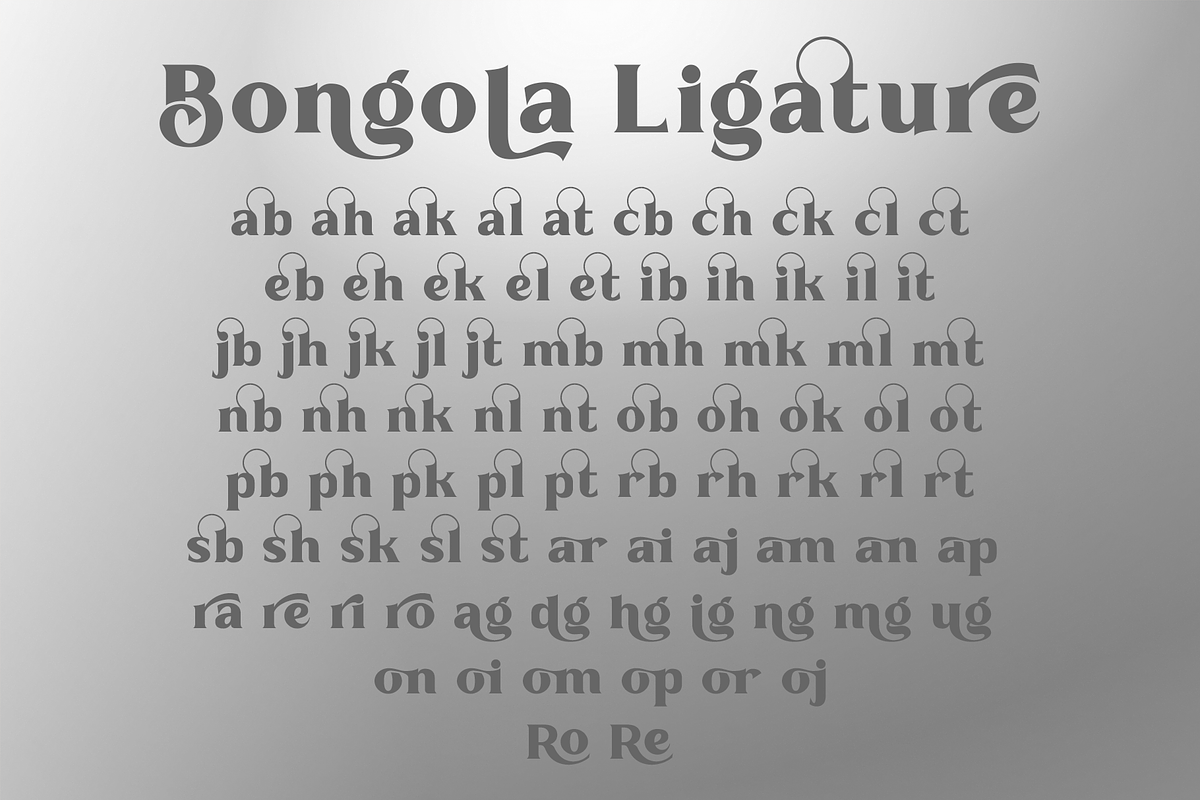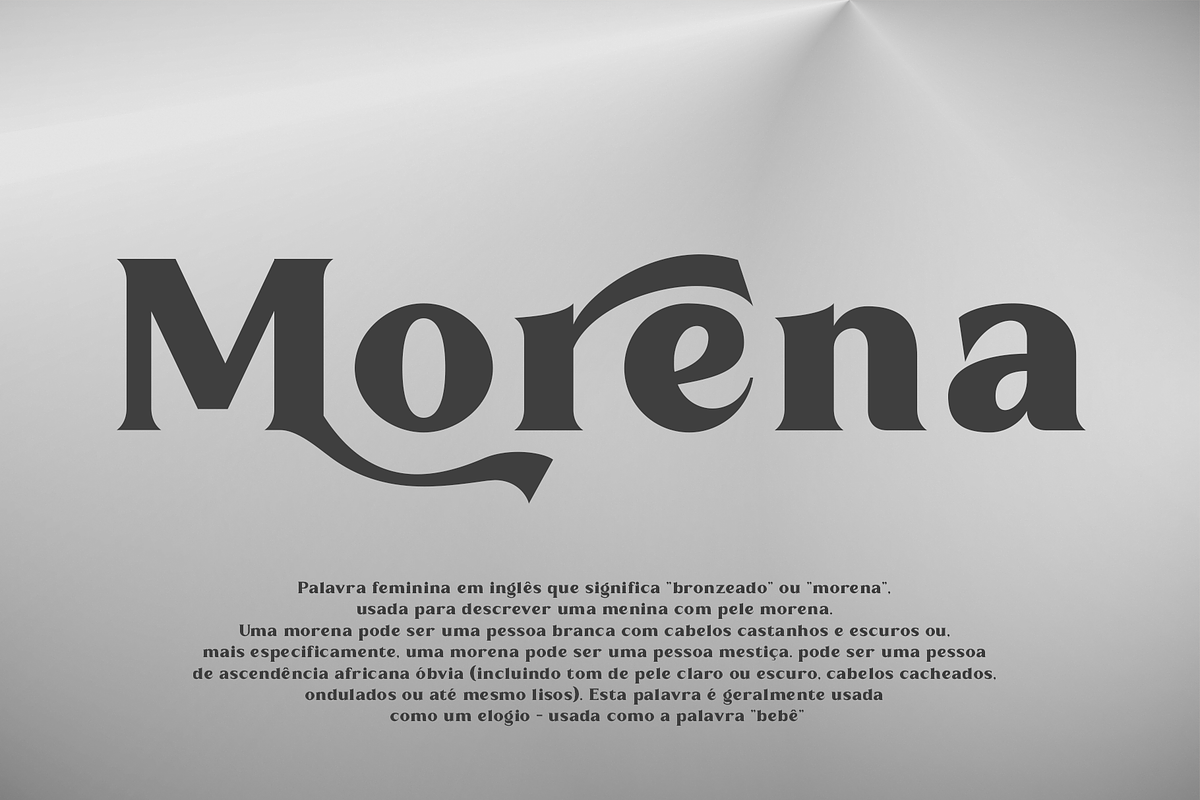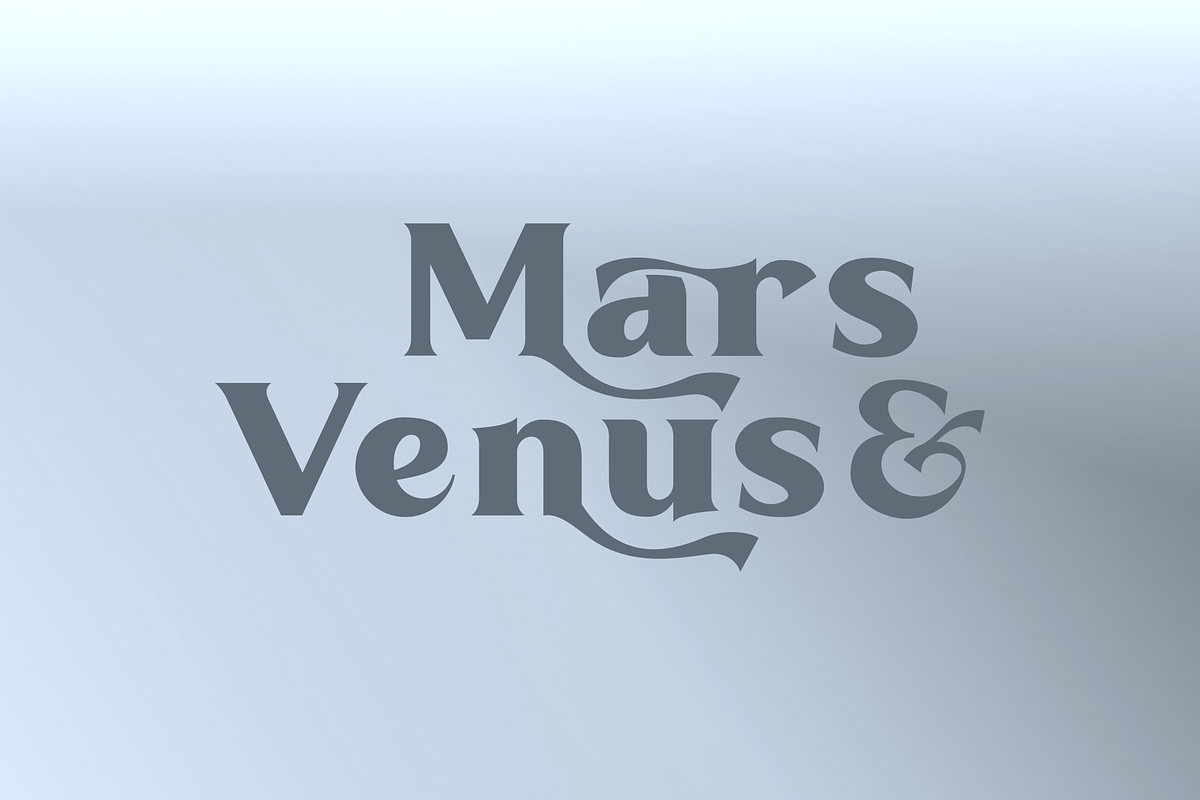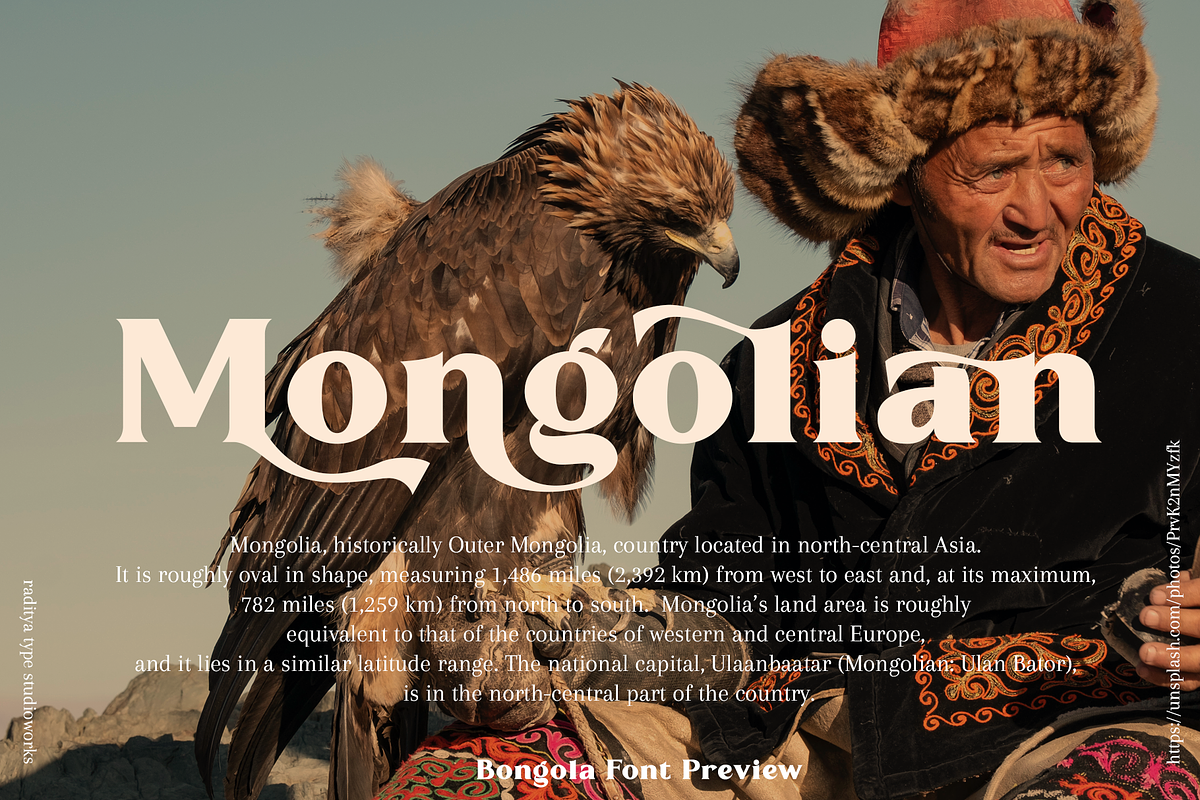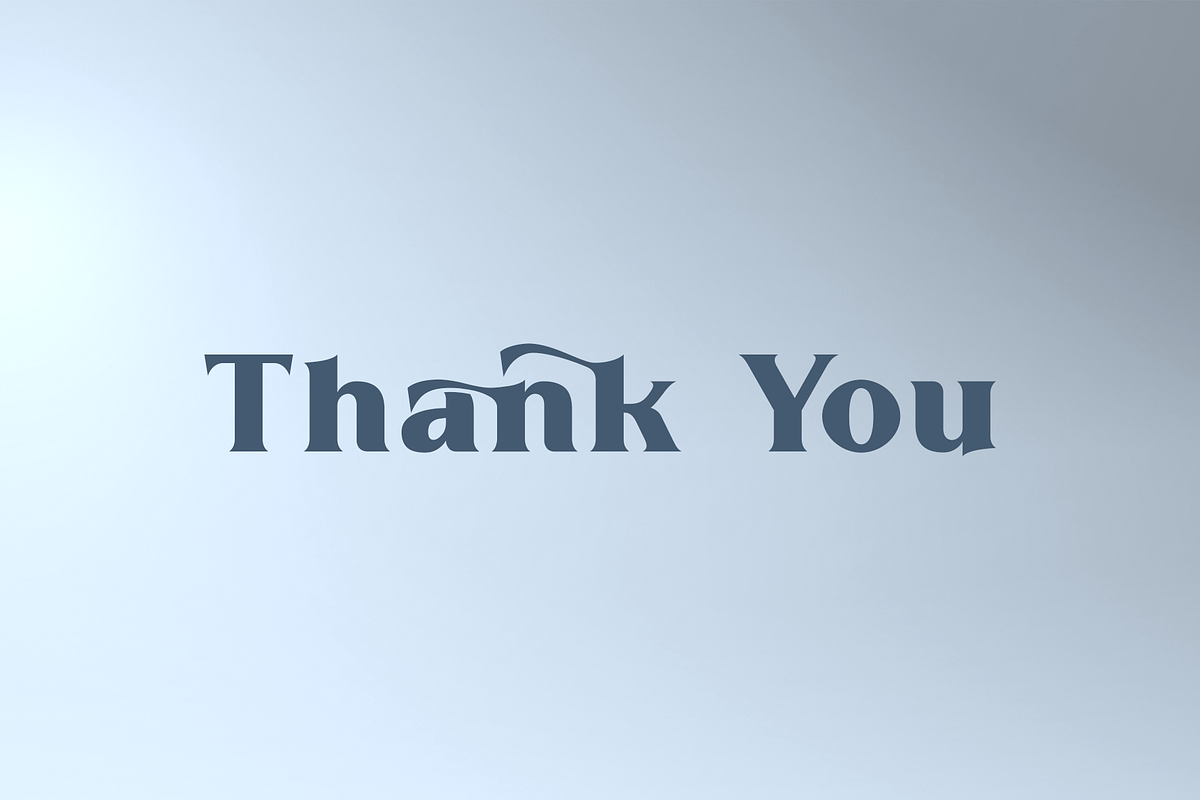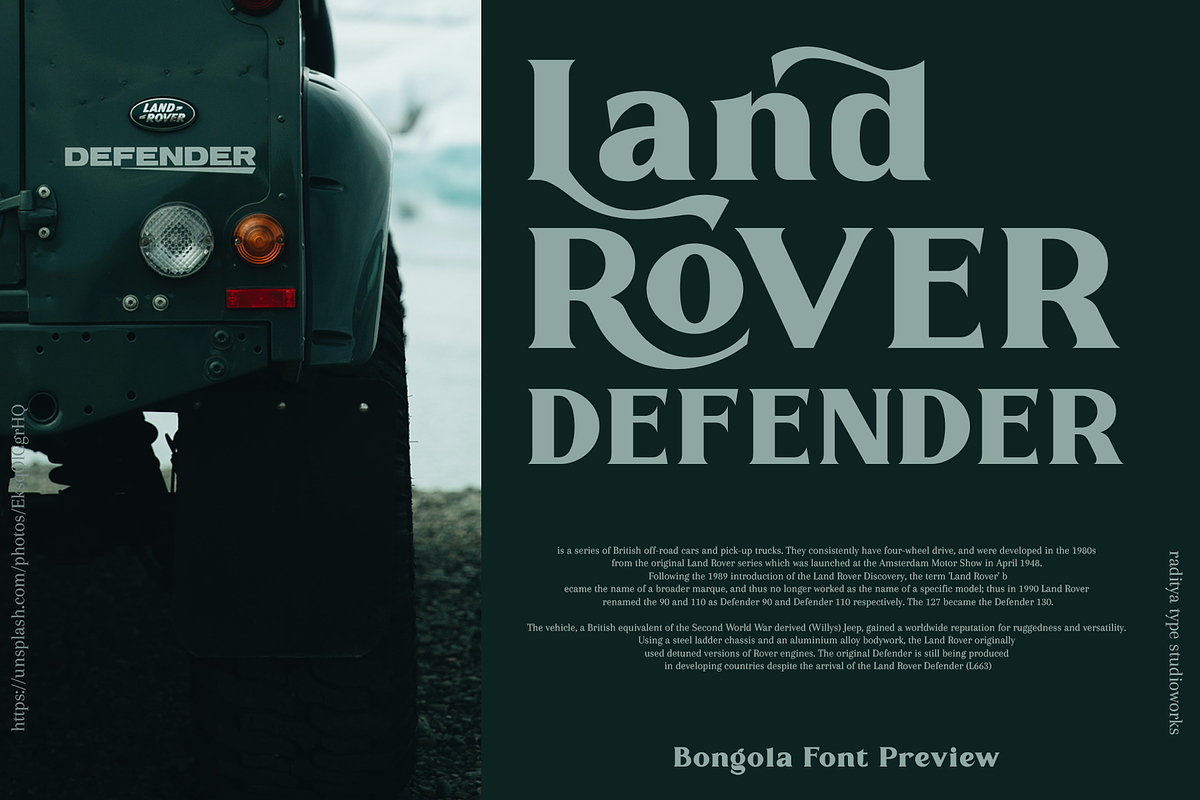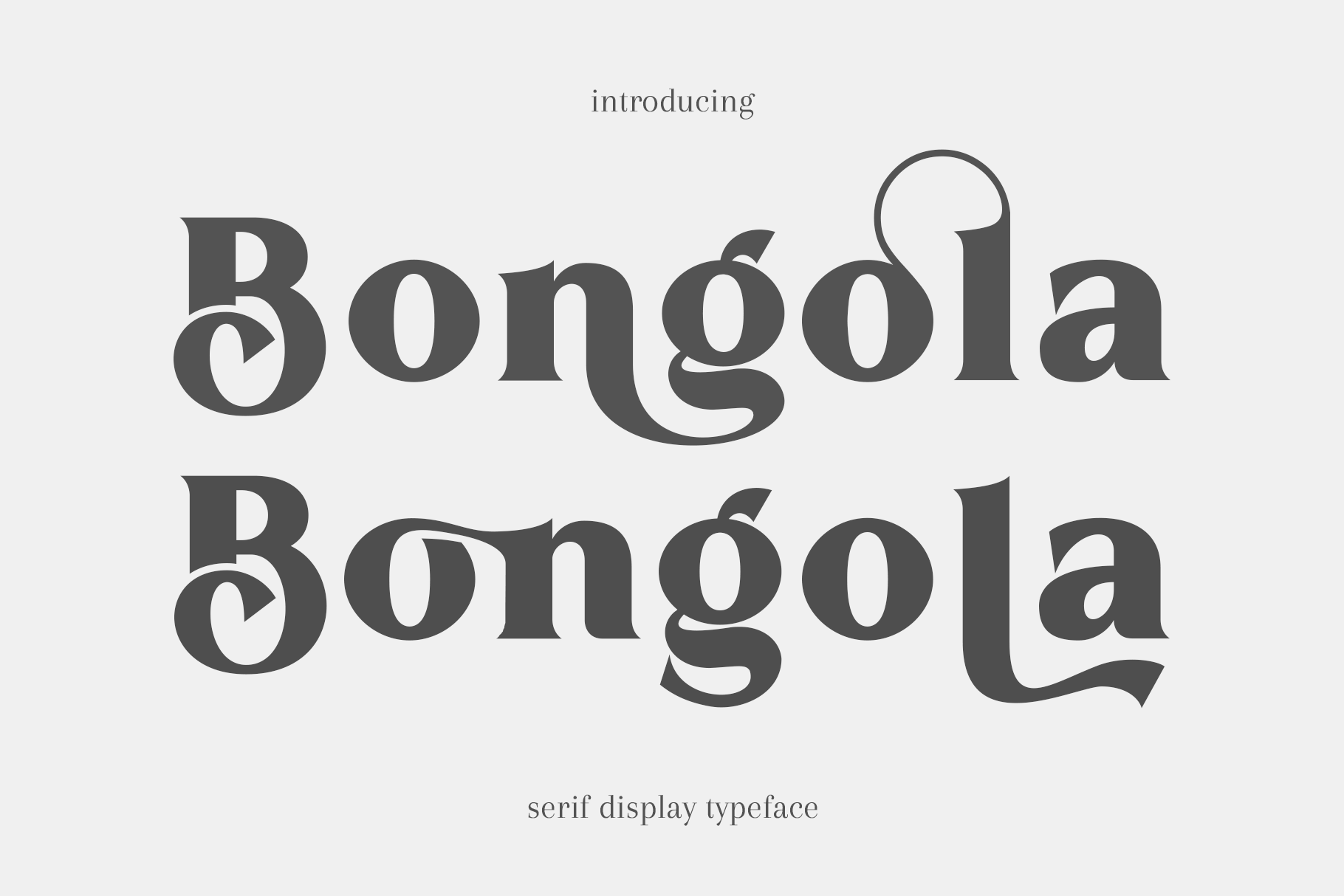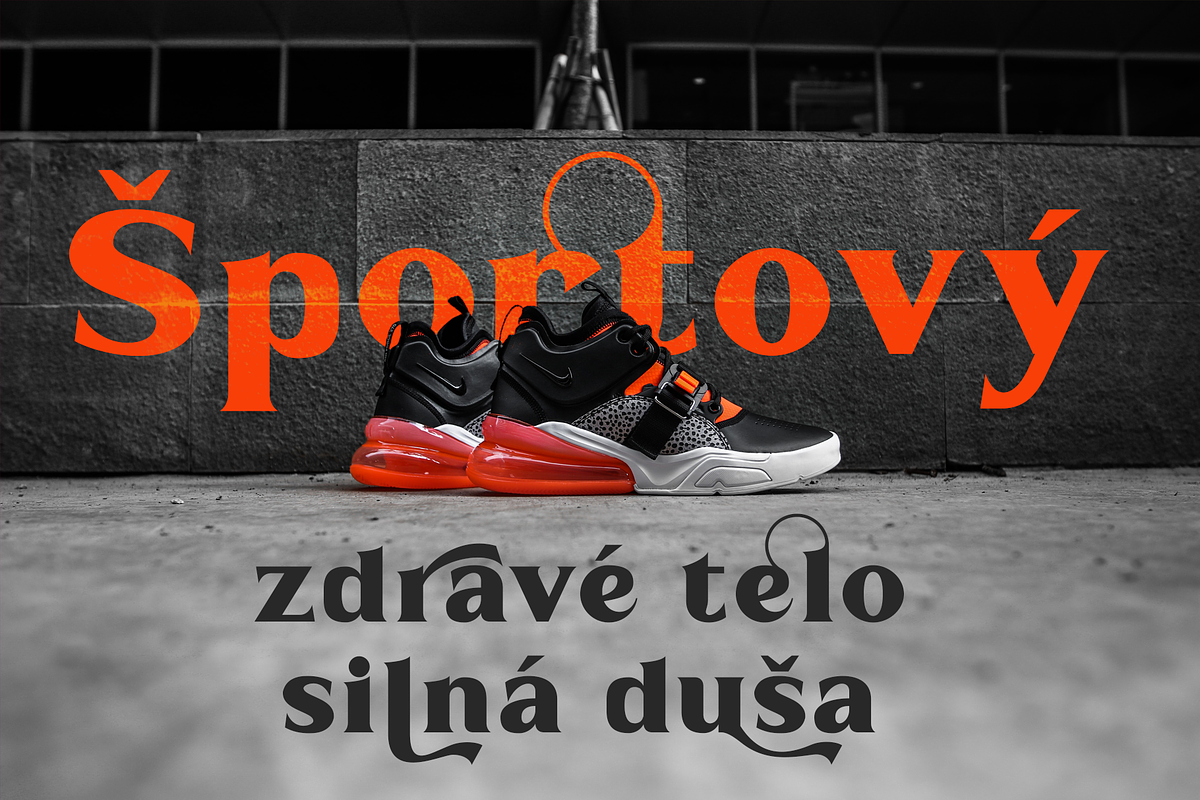
Bongola | Serif Display Font
Introducing the Bongola Font
Bongola is a serif display font with beautiful ligatures, and multilingual support. This is a very versatile font that works in both large and small sizes.
Bongola is perfect for branding projects, Logo design, Apparel Branding, product packaging, magazine headers, or just as a stylish text overlay to any background image.